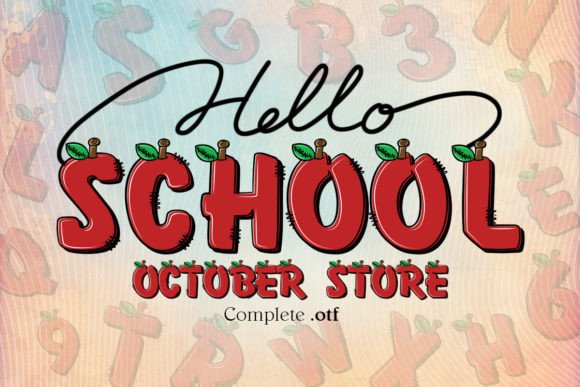
Step Into Creativity: The School Classroom Font
Capturing the Lively Spirit of a Classroom
There's a certain energy that comes with the start of a new school year—the smell of fresh chalk, the crisp pages of a new notebook, the vibrant posters lining the hallways. The School Classroom font is designed to bottle that exact feeling. This isn't just another typeface; it's a display font that embodies the playful, organized, and slightly nostalgic atmosphere of a learning environment. Its visual characteristics are immediately engaging: letterforms that feel hand-drawn yet structured, with a personality that balances academic charm with creative freedom. The style leans into a handwritten font aesthetic but maintains excellent legibility, making it more versatile than many purely decorative scripts.
The overall appeal of School Classroom lies in its ability to evoke emotion without sacrificing function. It carries the weight of tradition associated with a serif font but delivers it with the approachability of a sans serif font. This unique blend makes it a powerful tool in your design arsenal. It feels familiar, trustworthy, and instantly recognizable, which is crucial for building a strong brand identity or creating memorable social media graphics. When you use this creative font, you're not just selecting letters; you're choosing a tone of voice that speaks directly to themes of learning, growth, and community.
Where This Font Truly Shines: Real-World Applications
Understanding where a font works best is key to using it effectively. The School Classroom font excels in projects that aim to connect with audiences on a personal, often nostalgic, level. In editorial design, it can transform a magazine layout or blog header into an engaging story, especially for content related to parenting, education, or DIY crafts. For packaging design, imagine this font on products aimed at teachers, students, or families—it instantly communicates a product's purpose and personality. It’s equally effective in web design, where it can be used for headlines or call-to-action buttons to inject warmth and character into an otherwise standard digital interface.
Entrepreneurs and small business owners will find it particularly useful. A tutoring service, a stationery brand, or a local community center can use School Classroom as a cornerstone of their logo design and marketing materials. It helps build a brand perception that is both professional and approachable. For marketers and bloggers, it’s a fantastic tool for creating eye-catching social media graphics, email newsletter headers, or digital ads that stand out in a crowded feed. The font's playful nature increases audience engagement, making your message more memorable. Even for personal projects, like designing a family photo book or creating custom party invitations, this premium font adds a layer of thoughtful design that elevates the final product.
Practical Guidance for Using School Classroom
Choosing the right font for a project involves more than just liking how it looks. First, always evaluate the project fit. School Classroom is a display font, meaning it’s optimized for headlines, logos, and short bursts of text. It’s not designed for setting long paragraphs of body copy. Its strength is in grabbing attention and setting a mood. When testing font pairing, consider combining it with a clean, neutral sans serif font like Open Sans or Lato for body text. This creates a clear visual hierarchy, allowing the School Classroom font to command attention for key messages while ensuring the supporting text remains highly readable.
It's also important to review the included styles and character sets. This particular color font is an OpenType-SVG file, which means it contains rich, multicolored details within the font itself. This is a fantastic feature for digital projects in software like Adobe Photoshop or Illustrator, as it allows you to create complex, colorful designs with a single click. However, this also means compatibility is a key consideration. Always check the licensing to ensure it covers your intended use, whether for personal or commercial font projects. For web use, you’ll need to confirm your platform supports color fonts or consider using a standard version if available.
Finally, test readability in context. A font that looks great on your screen might behave differently at a small size or on a textured background. Print out a sample or view it on different devices. Does it maintain its charm and clarity? The versatility of the School Classroom font makes it a valuable design asset, but like any tool, its effectiveness depends on thoughtful application. By considering its personality, pairing it wisely, and verifying its technical suitability, you can leverage this typeface to create designs that are not only beautiful but also strategically effective, inspiring and engaging your audience with every use.